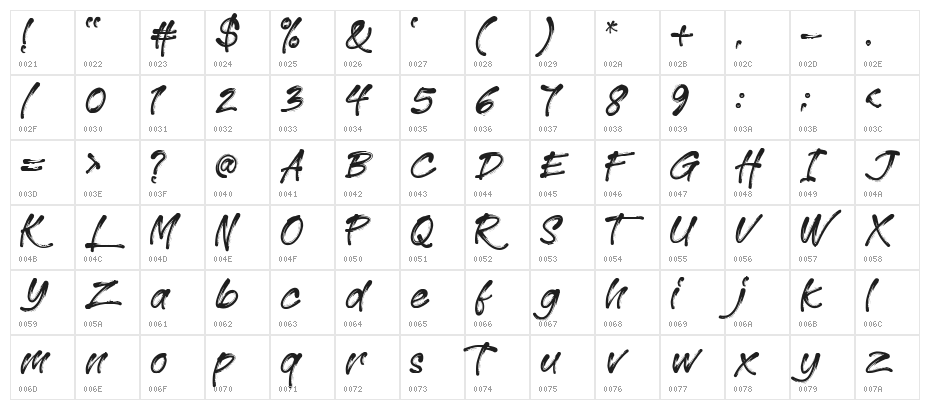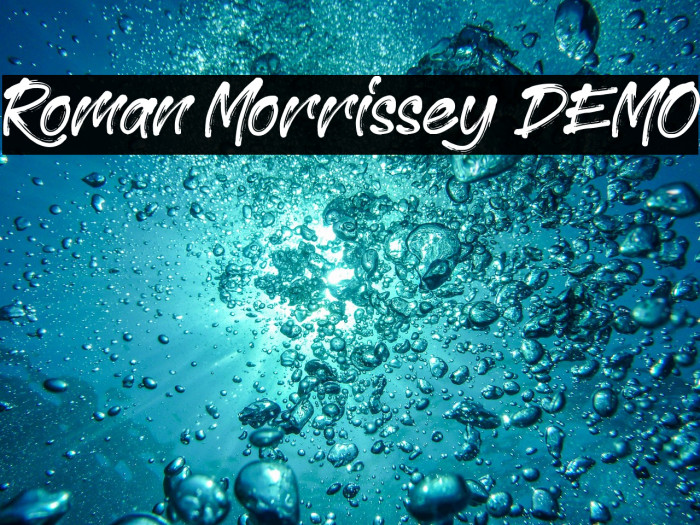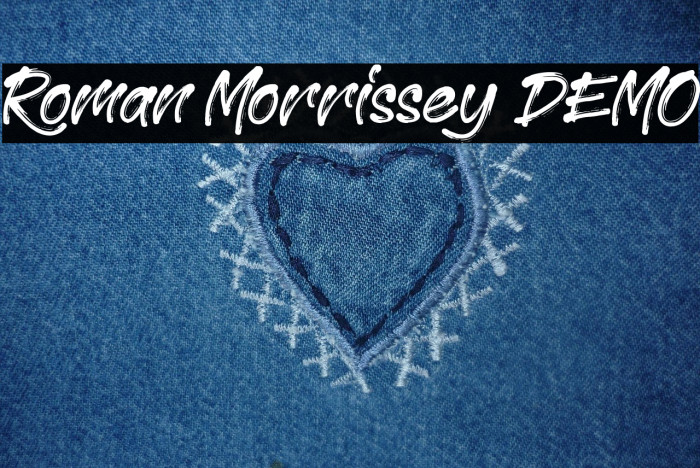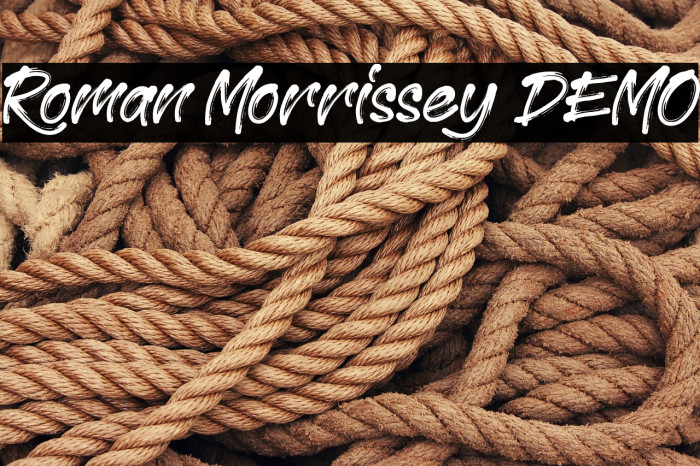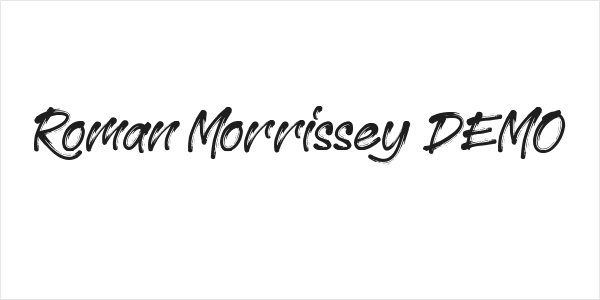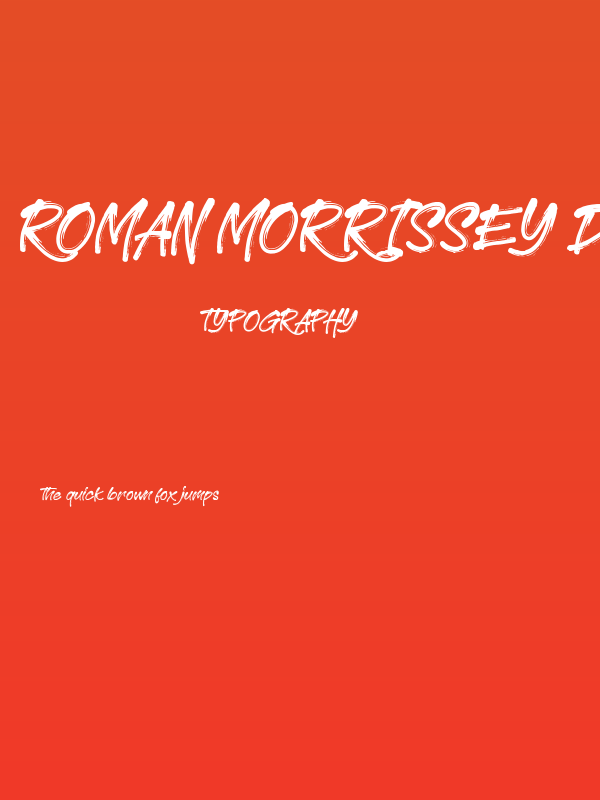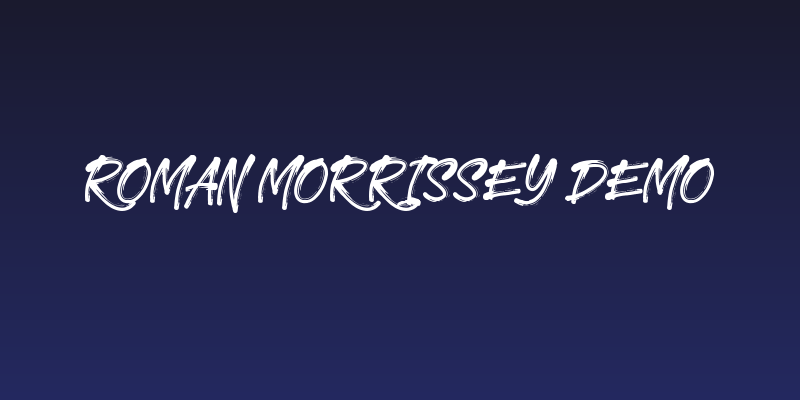
Roman Morrissey DEMO Font
Roman Morrissey DEMO Description
This font features a dynamic and expressive brush script style, characterized by its bold, sweeping strokes and energetic flow. The letters are crafted with a hand-painted appearance, giving them a lively and artistic feel. The uppercase and lowercase letters maintain a consistent style, with exaggerated curves and varying line thickness that add to its visual interest. The numerals and special characters are equally expressive, maintaining the same brush-like quality. This font is ideal for projects that require a personal touch or a creative flair, such as branding, packaging, or artistic posters.
| Proposed Projects | Branding, packaging, artistic posters, creative invitations, and logo design. |